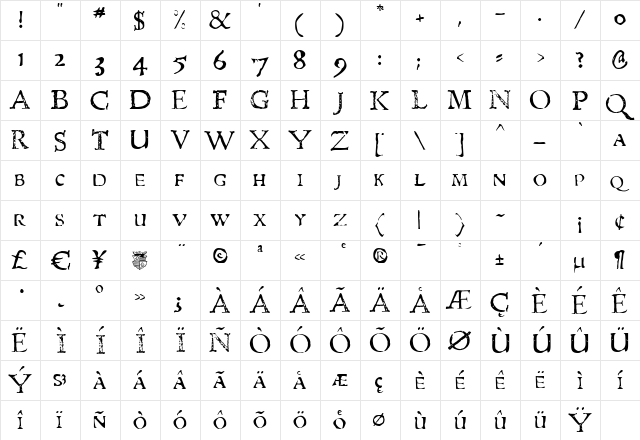
Telegdi AntiqueSC
Design Context for Telegdi Typeface
Telegdi has the warm character of retro typography — evoking diners, record sleeves, and the golden age of print advertising.
Font Pairing: Combine Telegdi with a simple slab or neutral sans — period-accurate companions reinforce the vintage feel without competing for attention.
Pro Tip: Lean into Telegdi's period character by pairing it with aged paper textures, muted colour palettes, and vintage illustration styles.